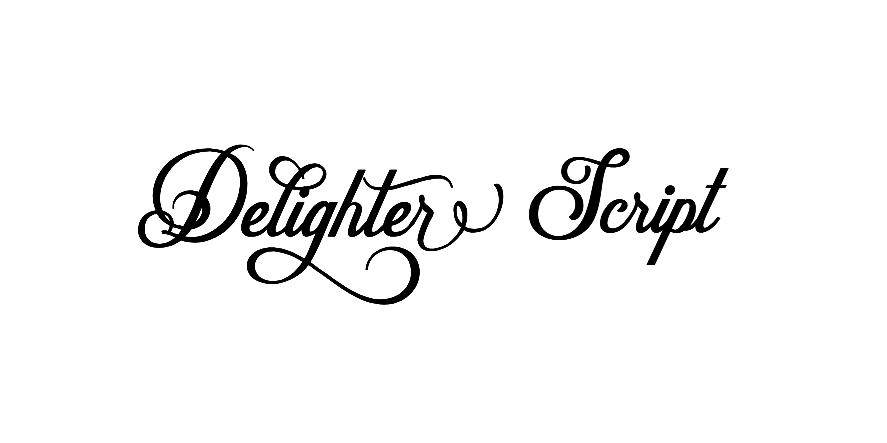
Delighter Script
Delighter Script is a calligraphy font designed by Fery Septian and published by Uncurve Typefoundry (2019). It has that hand-lettered, flowing feel people look for when regular type seems too stiff. You can download it for free and test it with your own words in the preview above.
- Designer: Fery Septian
- Publisher: Uncurve Typefoundry
- Glyphs: 149
What You Can Type With Delighter Script
Delighter Script covers the full alphabet in upper and lowercase, plus all ten numbers, so you can set names, dates and prices without switching fonts. Everyday marks like &, !, ? and @ are there too. It has 2 accented letters, but not the full set for Spanish or French, so test any non-English words first.
Ligatures and Smart Letters in Delighter Script
Where Delighter Script Works Best
Think of Delighter Script for wedding invitations, certificates and elegant quotes. Script fonts read best in short bursts, so keep it to names, titles and one-line quotes. Skip all caps: script capitals are drawn to start a word, not to fill one.
Who designed Delighter Script font?
Delighter Script was designed by Fery Septian and published by Uncurve Typefoundry. The copyright line inside the font is dated 2019.
Does Delighter Script have ligatures?
Yes. Delighter Script has ligatures that turn on by themselves in most design apps and browsers, so you don't need to do anything special.
Does Delighter Script support accented letters?
Partly. Delighter Script has 2 accented letters, but not the complete set for Spanish, French or German. Type your words in the preview above to check before you use it.